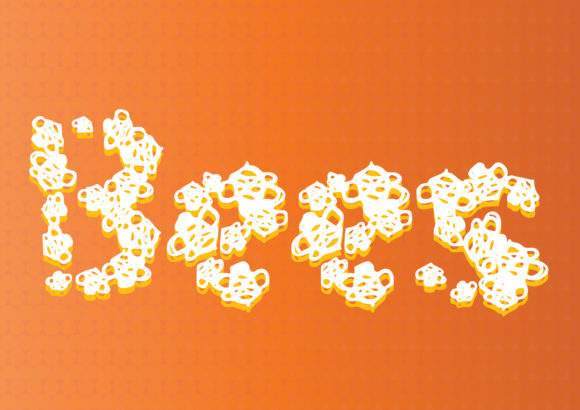
Immerse your designs in an enchanting realm with Bees Font, the epitome of nature's charm and lightheartedness. Let your creativity bloom as you explore the whimsical world of nature, where bees dance in harmony, and flowers bloom in vibrant hues. This exquisite display font, meticulously crafted by the skilled artisans at GraphicsBam Fonts, captures the essence of nature's playfulness and transforms your designs into captivating storytelling masterpieces.
With its enchanting curves and organic textures, Bees Font beckons you to embark on a visual adventure. Its hand-drawn characters exude a sense of warmth and authenticity, evoking the magic of a carefree summer's day. Whether you're designing invitations, posters, packaging, or digital content, Bees Font will infuse your work with a touch of magic and personality.
Unleash your creativity and embark on an artistic journey with Bees Font, where every letter tells a tale of nature's wonder. Let your imagination soar as you witness the transformation of ordinary words into captivating works of art. Embrace the whimsical charm of Bees Font and unlock a world of boundless design possibilities.